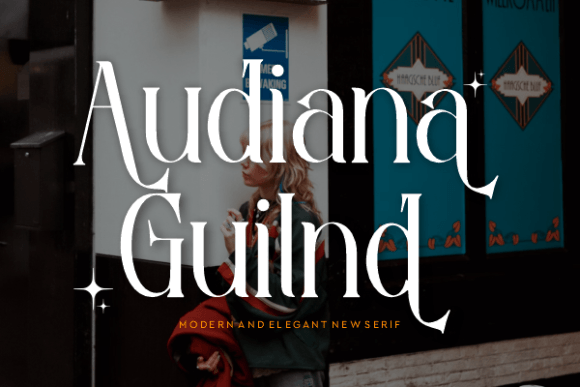
A Perfect Harmony of Elegance and Modernity: Unveiling the Audiana Guilnd Font
There’s nothing quite like the thrill of discovering a new font that perfectly captures the essence of your creative vision. You’ve spent hours pouring over sketches and color palettes, and then, like a breath of fresh air, you stumble upon a font that brings it all together. For designers seeking to infuse their projects with timeless sophistication, the Audiana Guilnd Font is a game-changer.
Carefully crafted to combine the refinement of traditional serif fonts with the sleekness of modern typography, the Audiana Guilnd Font is the perfect solution for projects that demand a balance of elegance and contemporary flair. With its distinctive charm and beauty, this font is sure to elevate your typographic expression and leave a lasting impression on your audience.
Whether you’re working on a high-end branding project, a luxury magazine spread, or a wedding invitation suite, the Audiana Guilnd Font is a valuable addition to your design toolkit. Its versatility and sophistication make it an ideal choice for designers who want to create truly memorable and refined visual experiences.
Audiana Guilnd Font Key Features
- Font Family: Audiana Guilnd is a font family with multiple styles, including Regular, Italic, Bold, and Bold Italic.
- Unique Characteristics: Audiana Guilnd features a unique blend of modern and traditional design elements, with subtle flair and elegance.
- Language Support: Supports a wide range of languages, including Latin, Cyrillic, and Greek scripts, making it suitable for global applications.
Audiana Guilnd Font Review
I recently had the chance to work with the Audiana Guilnd font, and I must say it’s a unique and interesting addition to any design project. Here are my thoughts on what works well and what doesn’t.
- The font’s elegant, flowing curves make it perfect for projects that require a touch of sophistication.
- The varying line widths and x-heights create a sense of depth and visual interest.
- The font’s versatility makes it suitable for both digital and print applications.
- The font’s complexity can make it challenging to pair with other fonts, especially for those with limited design experience.
- The font’s large file size can slow down performance, especially in older systems or when working with large documents.
- The font’s unique style may not appeal to all audiences, making it less suitable for more conservative or traditional projects.
The Audiana Guilnd font is a bold and striking choice for designers looking to add some personality to their work. While it may present some challenges, the font’s unique characteristics make it well worth considering for the right project. With careful selection and pairing, the Audiana Guilnd font can elevate even the most mundane designs to new heights.
Tips for Getting the Most Out of Audiana Guilnd Font
Here are some tips for getting the most out of Audiana Guilnd Font:
- Use the font in combination with other elegant fonts for a sophisticated look
- Experiment with different font sizes and styles to create visual interest
- Use the font to create headings and subheadings for a clear and organized layout
Common Use Cases for Audiana Guilnd Font
Audiana Guilnd Font is commonly used in:
- Luxury
Alternatives to Audiana Guilnd Font
Lato is a modern sans-serif font designed by Łukasz Dziedzic. It is highly legible and suitable for body text, headings, and titles. Lato is a great alternative to Audiana Guilnd Font for designers who want a clean and minimalist look. Compared to Audiana Guilnd Font, Lato is more geometric and has a larger x-height, making it more readable at smaller sizes.